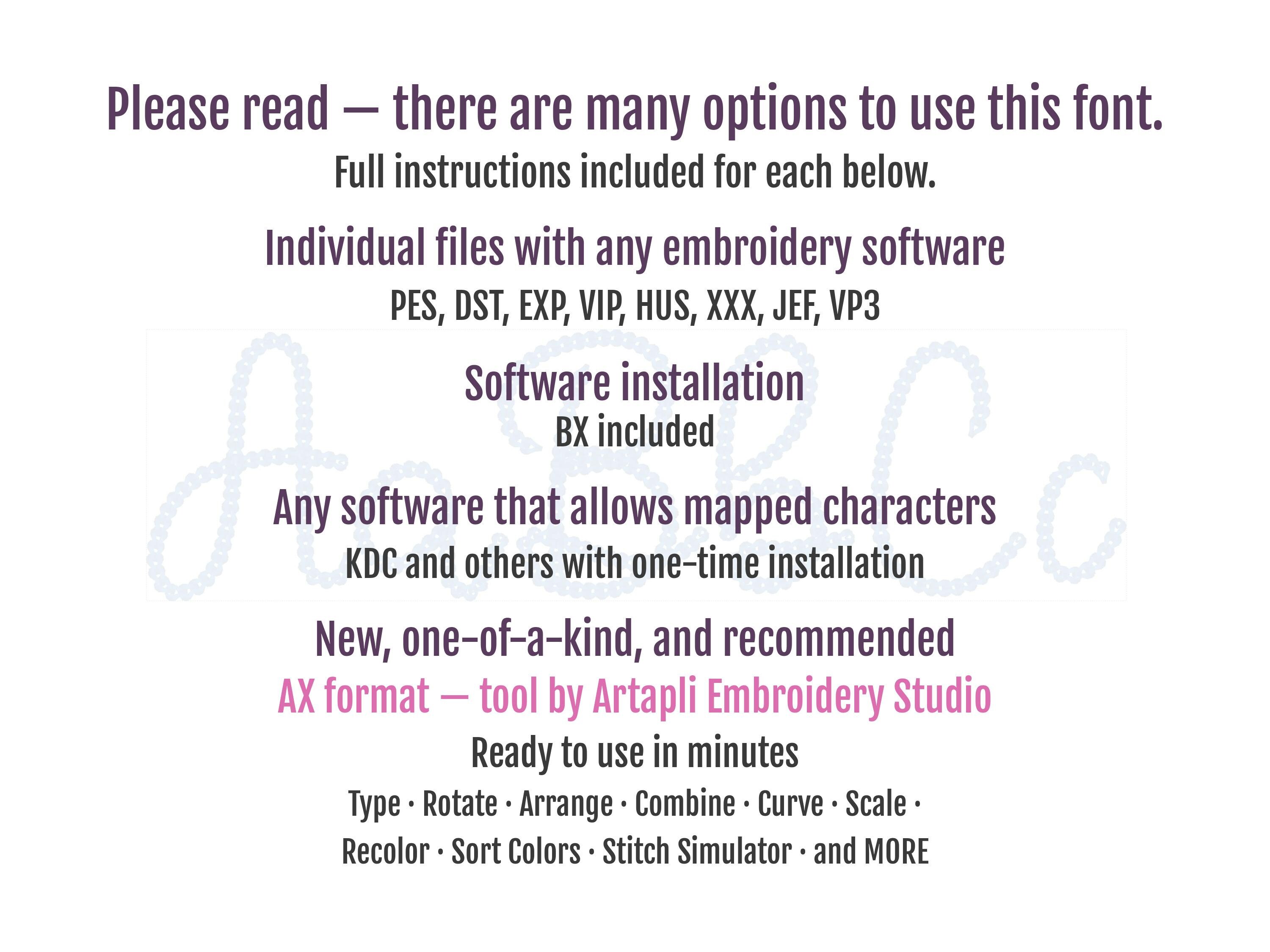
Bold Authentic Hand Chain stitch script FONT machine embroidery designs in alphabet letters knit sweater handmade effect chain name, and BX included
Entire alphabet uppercase and lowercase letters Aa-Zz, numbers 0-9, and a period.